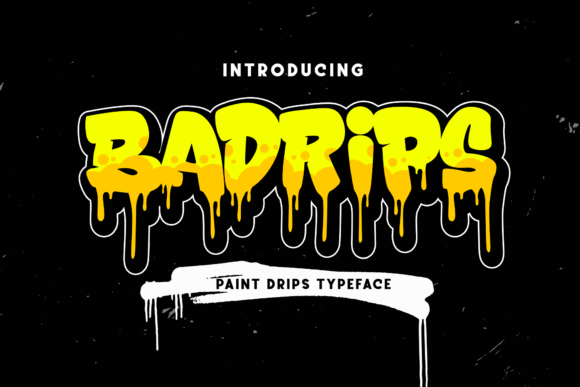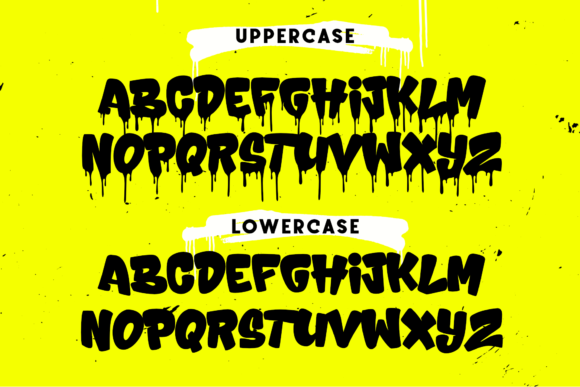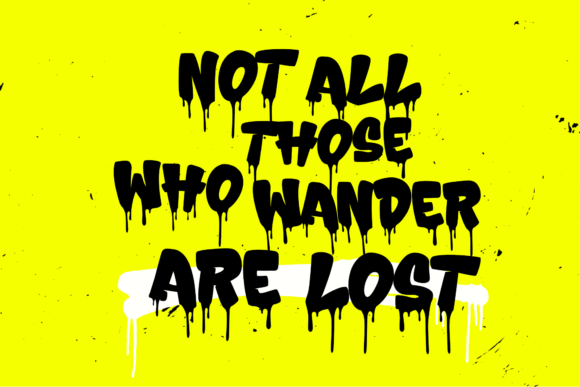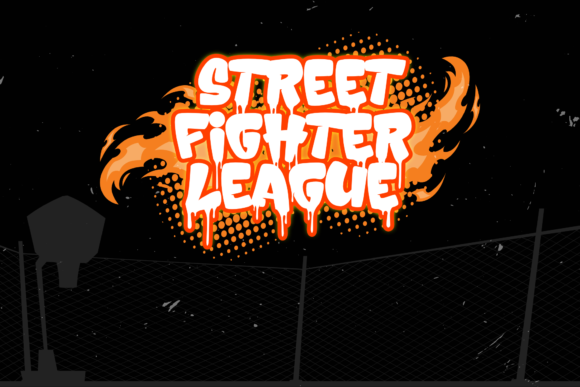
Badrips Font: A Cool Grunge Display Font for Streetwear Designs
About the Badrips Font
Let us introduce you to Badrips Font, where timeless design meets modern craftsmanship. Badrips is a cool street styled display font, inspired by the graffiti art. No matter the topic, this font will be an incredible asset to your fonts’ library, as it has the potential to elevate any creation.
Badrips excels as a headline font for projects needing a bold, rebellious attitude. It’s ideal for posters, branding materials for streetwear or music-related businesses, and packaging that targets a younger, urban demographic. Avoid using it for body text or long-form content; its strong character isn’t suited to readability in smaller sizes or extended passages.
Its rough, energetic style pairs well with clean sans-serif fonts like Montserrat or Open Sans for a balanced contrast. For a more playful feel, consider pairing it with a rounded geometric sans-serif like Futura or a hand-drawn script font with a similar raw aesthetic. These pairings provide readability where Badrips lacks it, while maintaining a cohesive brand identity.
The font’s core personality is undeniably bold and rebellious, conveying a sense of street-level energy and raw creativity. This makes it a powerful tool when used strategically, but its limitations in readability mean careful consideration of its application within a broader design context.
Badrips Font Usage Examples
Badrips Font Example